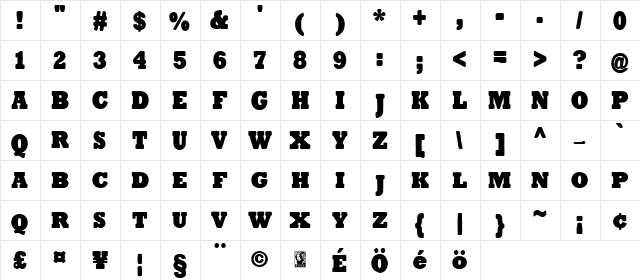
Tender Goliath Small-Caps Regular
| Foundry | S. John Ross |
| Designer | S. John Ross |
Design Context for Tender Goliath Small-Caps Typeface
Tender Goliath Small-Caps takes a measured approach to typography — its balanced proportions and neutral character make it a reliable workhorse for both digital and print work.